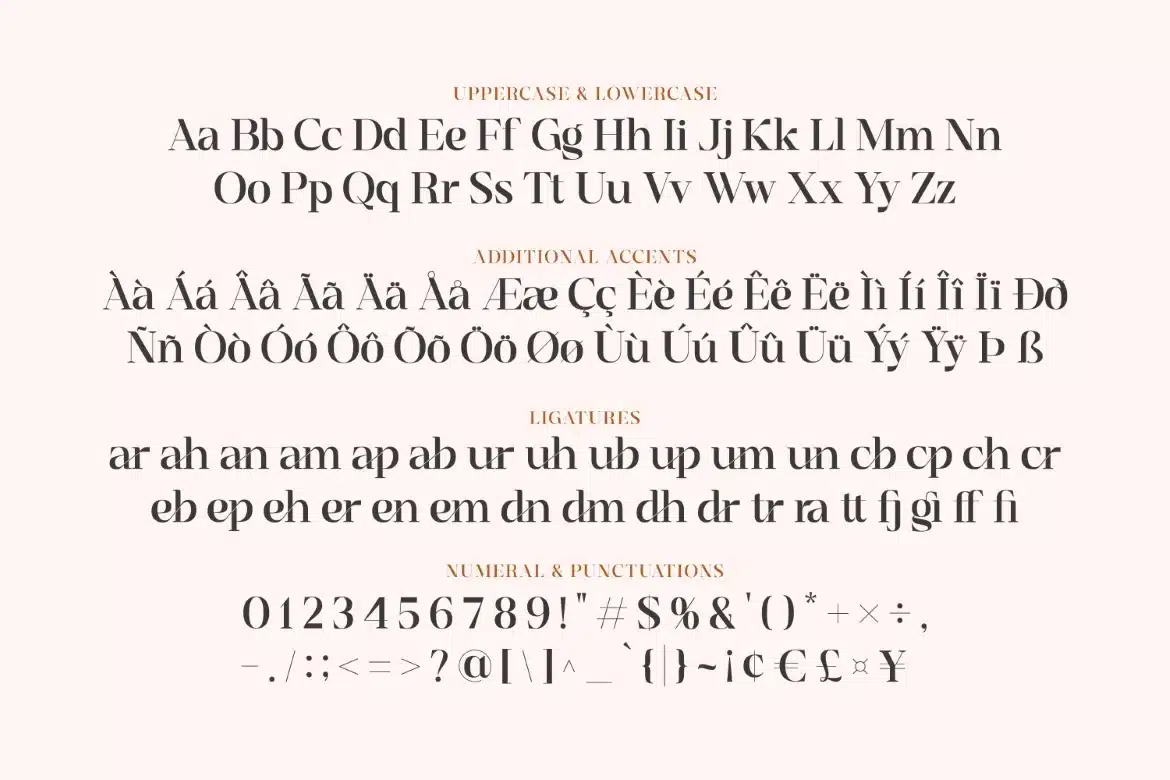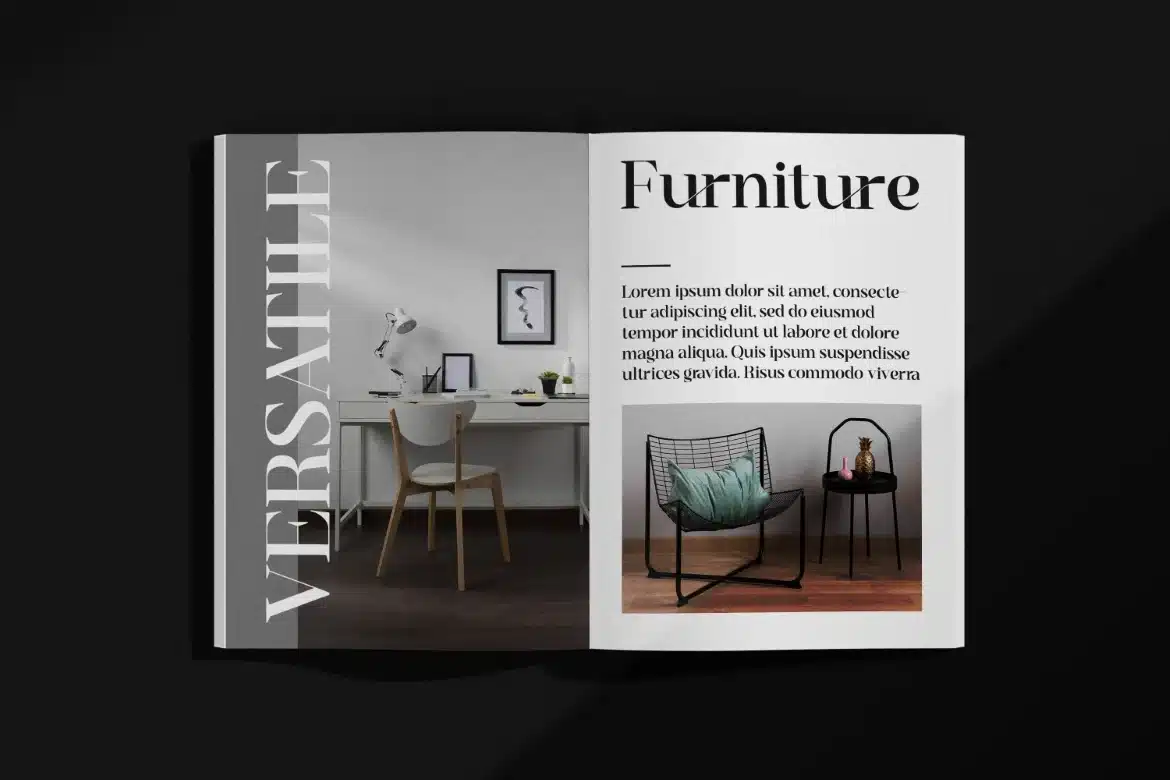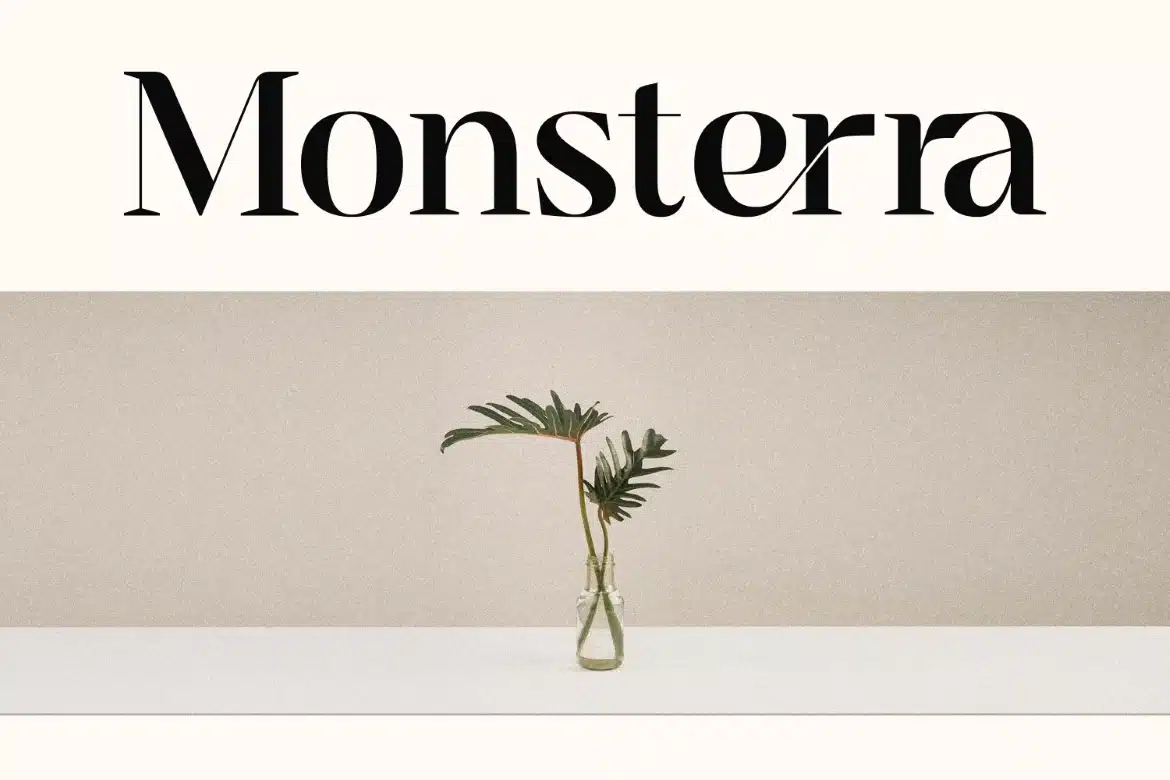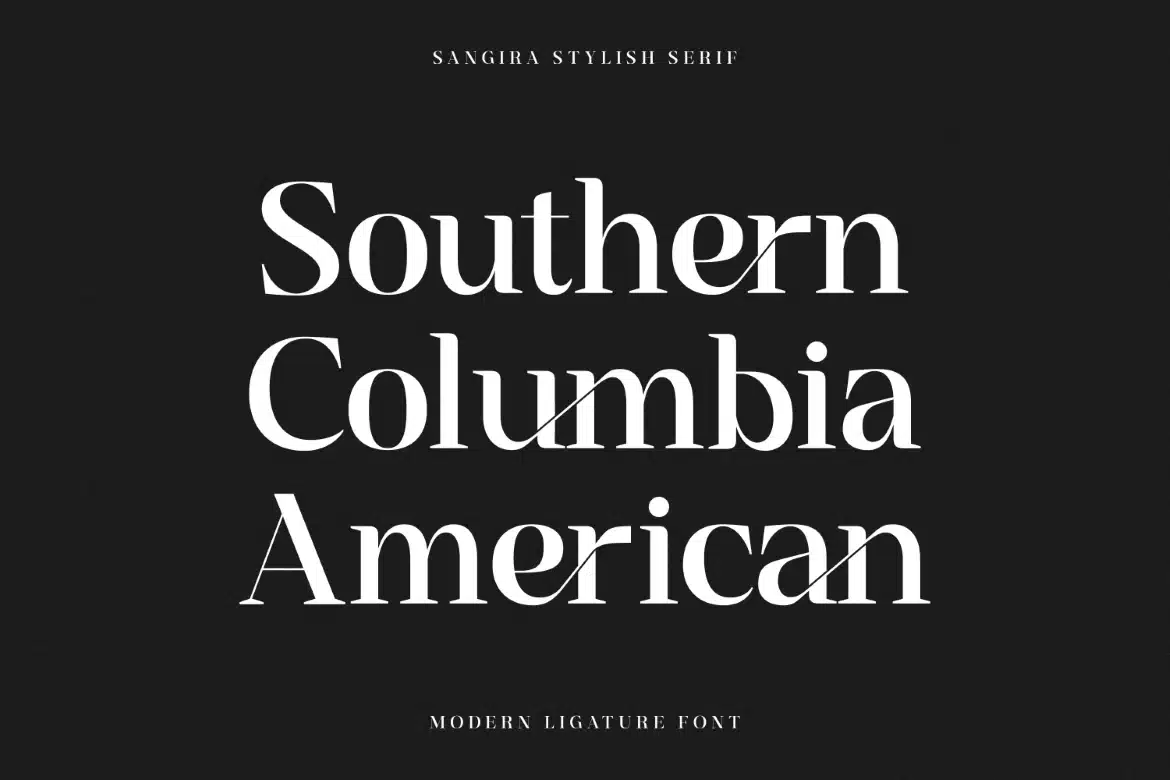
Sangira – Modern Ligature Serif Font
Introducing Sangira - Modern Ligature Serif inspired by the famous minimalist logo, perfect for the purposes of designing templates, brochures, videos, advertising branding, logos and more.
- Standard glyphs
- 33 Ligatures
- International Accent
Fonts include multilingual support